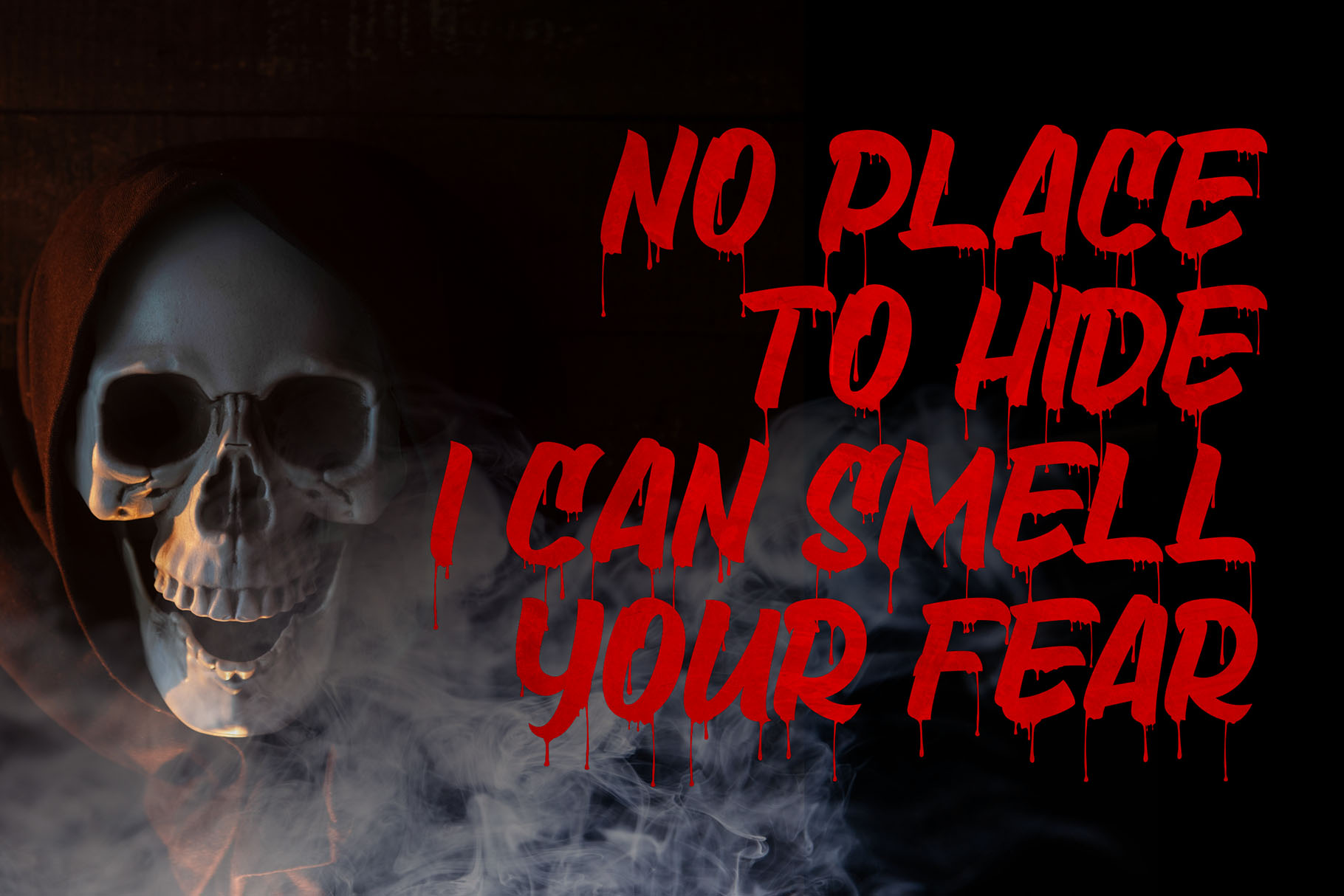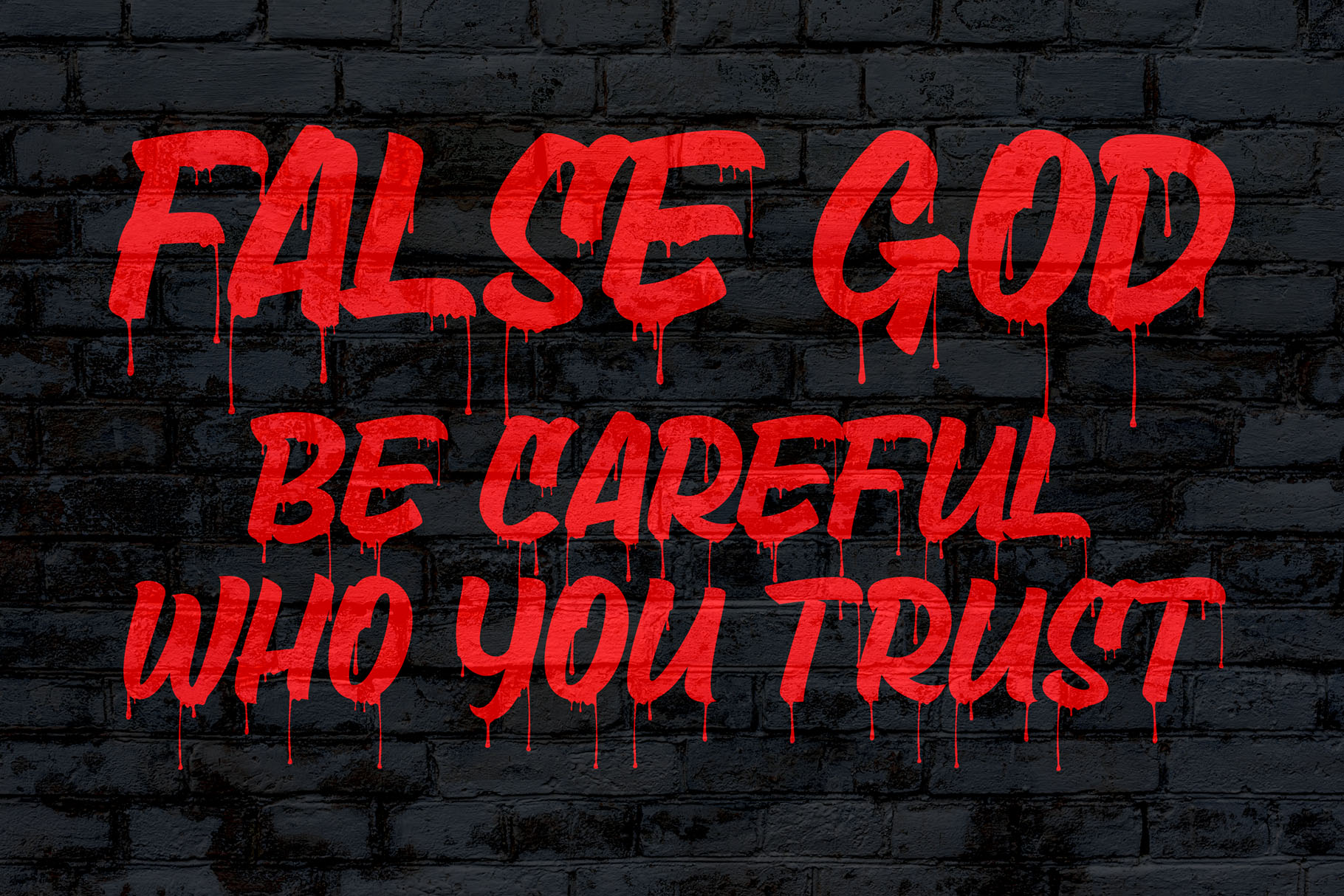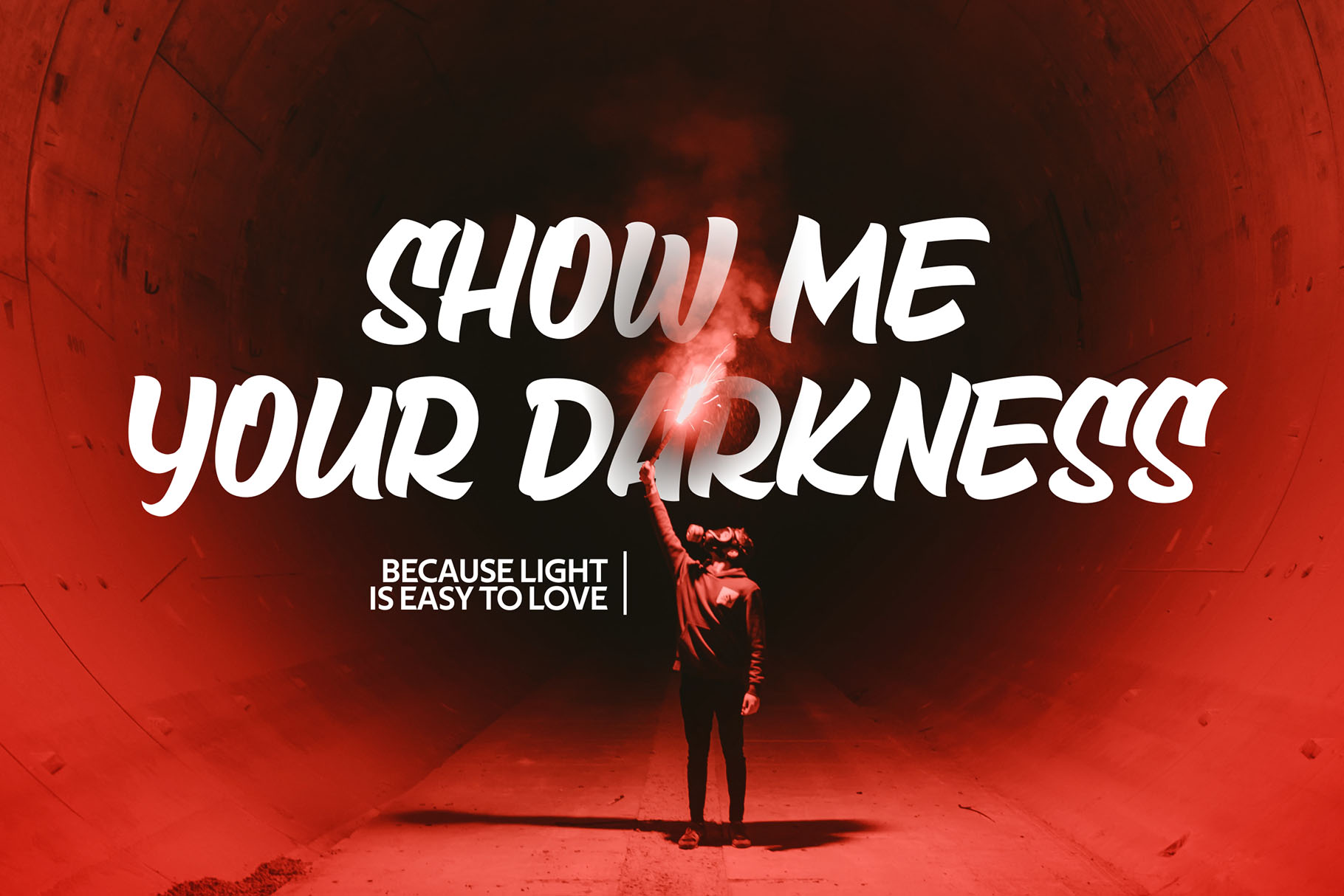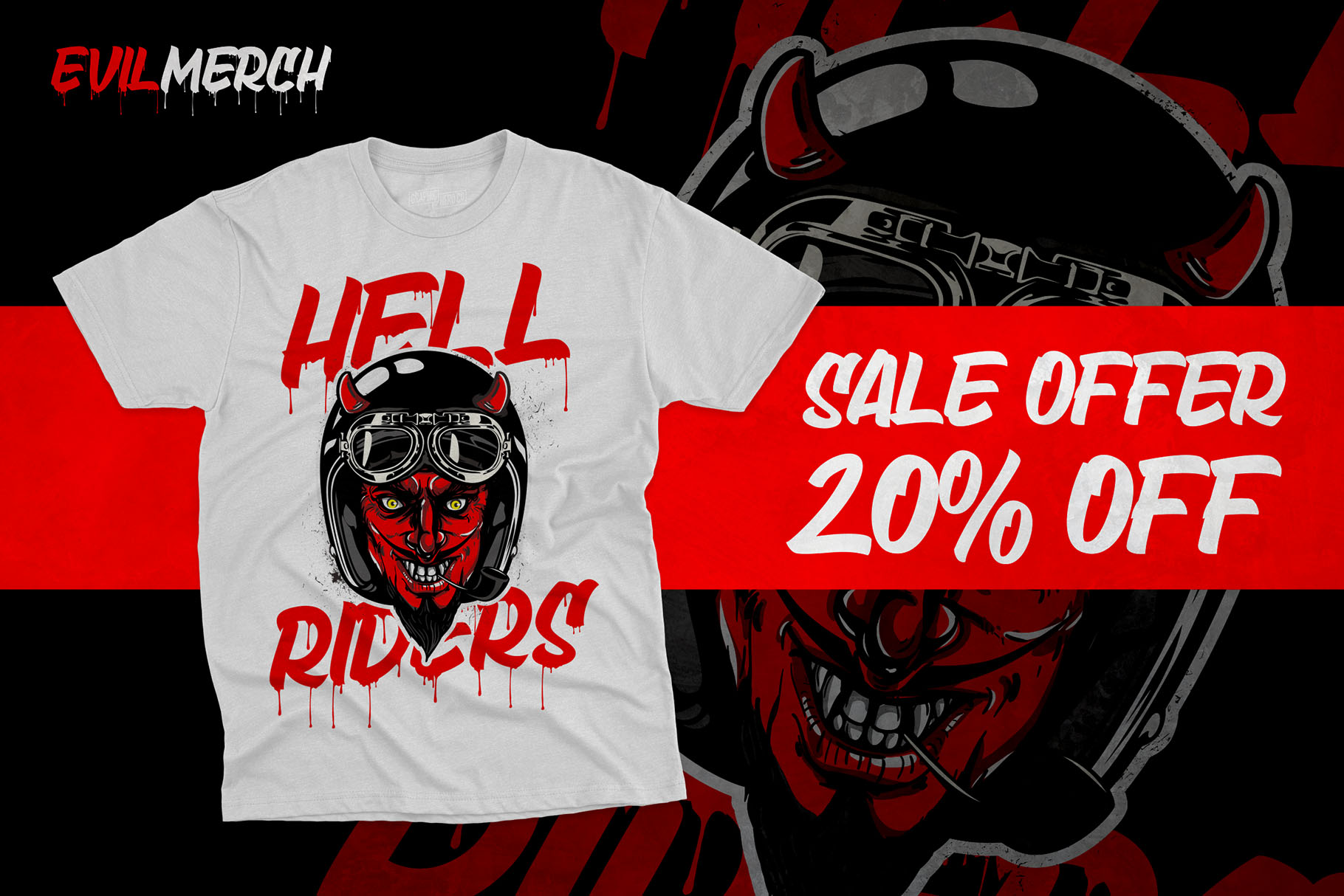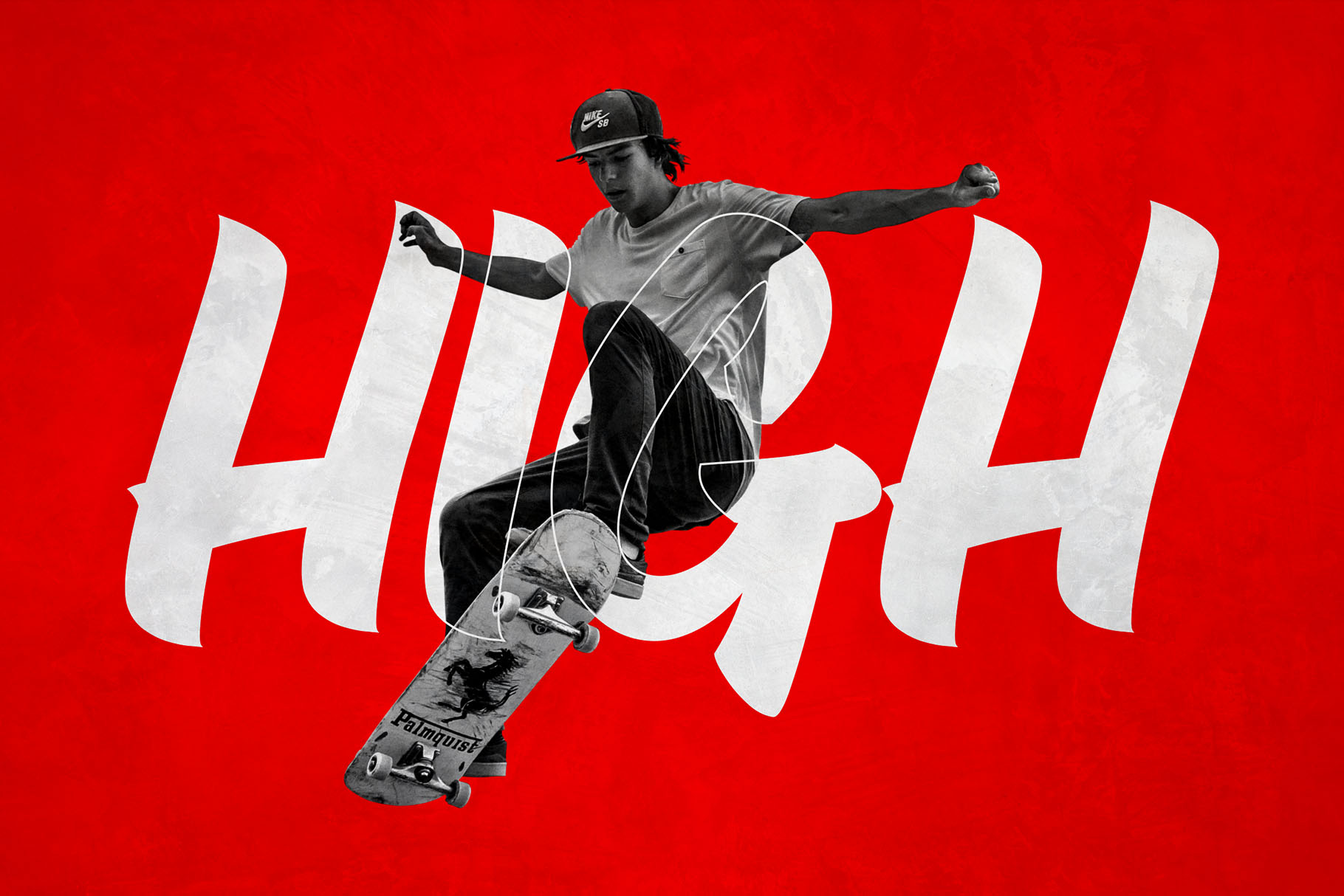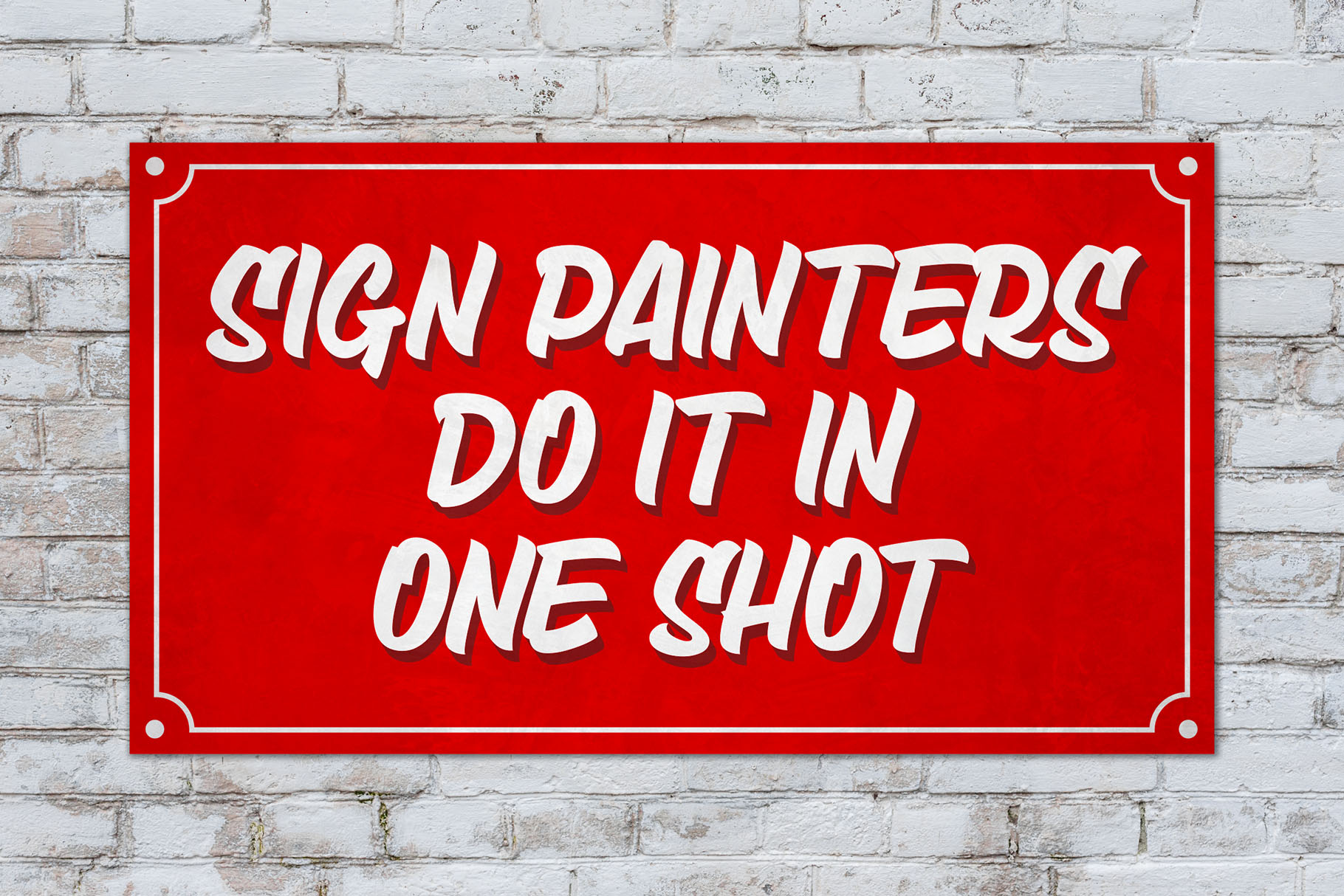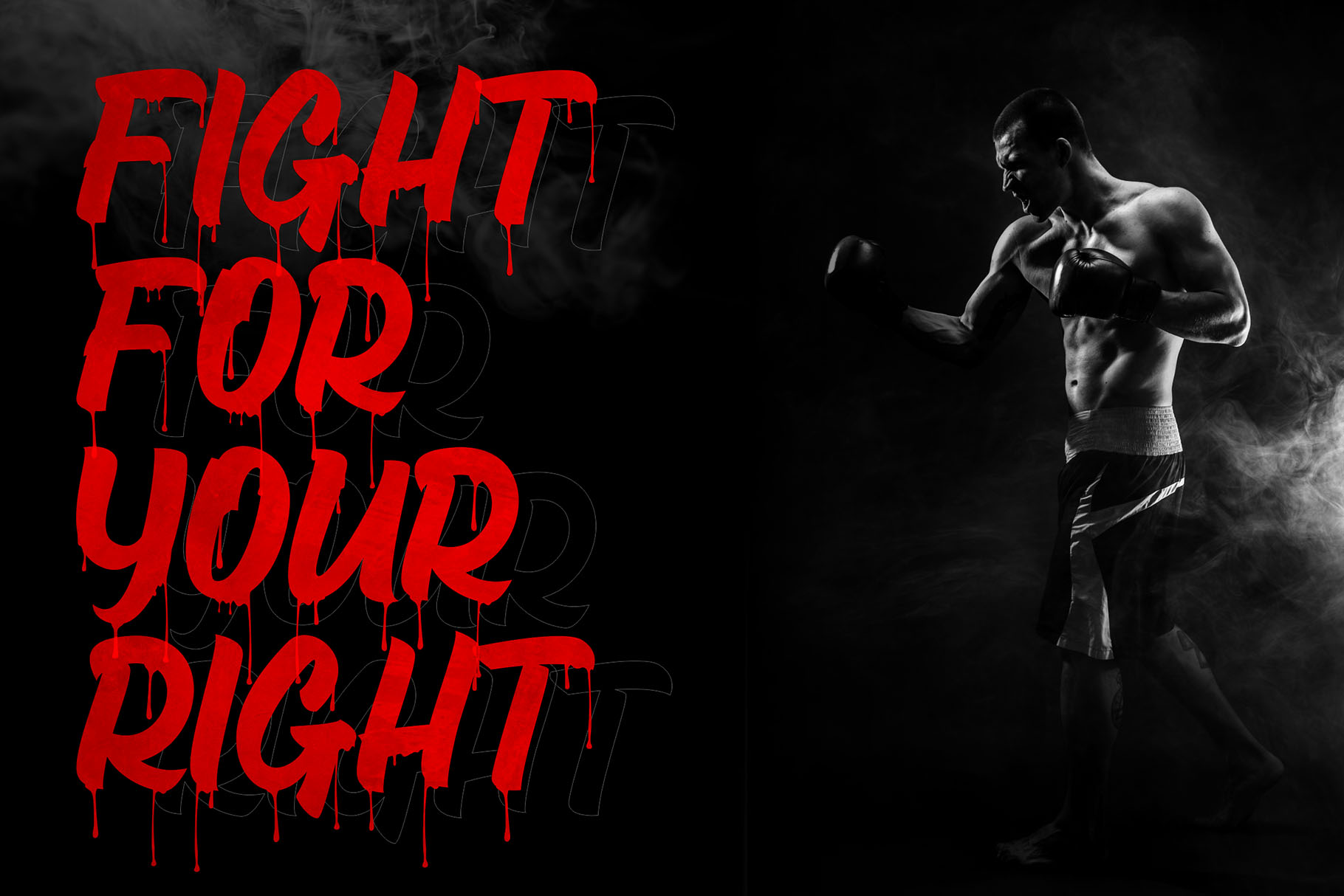
Death Markers Retro Brush Font for Vintage Horror Design
Death Markers is a retro brush font made for creative projects that need a bold vintage voice with a darker edge. Inspired by vintage aesthetic sign painting and built with a hand-lettering feel, this font brings dramatic movement, expressive brush energy, and a horror touch that instantly gives your design a stronger visual presence.
The mood is direct, raw, and memorable. Death Markers feels right at home in poster titles, merchandise artwork, Halloween-inspired branding, dark quote designs, product packaging, and social media graphics that need more personality than a clean standard typeface can offer.
With two included styles, Clean and Drip effect, Death Markers gives designers flexibility for different creative directions. Use the Clean style when you want a strong retro brush look with better readability. Use the Drip style when your project needs a more dramatic, eerie, or horror-driven atmosphere.
Death Markers carries the visual character of hand-painted signage, vintage brush lettering, and expressive retro display typography. Its strokes feel energetic and imperfect in the right way, giving the font a handmade personality that works well for branding and display use.
The Clean version gives your text a confident brush-lettered structure. It can be used for logos, headers, packaging names, quote layouts, apparel graphics, and bold promotional visuals. It keeps the retro sign-painting attitude while staying practical for projects that need strong text impact.
The Drip effect version adds a darker theatrical quality. It is ideal for horror posters, Halloween graphics, haunted event designs, spooky merchandise, dramatic social media content, and designs that need a visual sense of danger or mystery. The dripping detail helps create atmosphere without requiring extra illustration work.
Together, the two styles make Death Markers useful for designers who want one font family with both vintage charm and horror tension.
Best Use Cases for This Retro Brush Font
Death Markers is ideal for logos, handwritten quotes, product packaging, headers, posters, merchandise, social media graphics, and greeting cards. Its expressive shape makes it especially useful for projects where the typography needs to become the main visual element.
For branding, Death Markers works well when the brand direction leans bold, retro, spooky, handmade, alternative, or expressive. It can help create a memorable logo for tattoo-inspired brands, horror-themed products, vintage apparel labels, music posters, bar or café visuals, seasonal Halloween collections, and bold creative campaigns.
For packaging design, the font can bring a crafted, hand-painted feel to labels and product names. The Clean style can create a vintage shelf presence, while the Drip style can be used for limited editions, seasonal releases, or products that need a darker story.
For content creators and digital product sellers, Death Markers can be used in printable quotes, poster templates, greeting cards, social media posts, and merchandise artwork. The brush movement gives layouts a human feel, while the horror touch makes it stand out in niche design categories.
Key Features
- Retro brush font inspired by vintage aesthetic sign painting
- Hand-lettering style with dramatic movement
- Includes 2 styles: Clean and Drip effect
- Suitable for logos, handwritten quotes, packaging, headers, posters, merchandise, social media, and greeting cards
- Includes ligature feature
Designers love Death Markers because it gives a project instant character. It does not feel flat, plain, or overly polished. Instead, it brings the energy of brush lettering, vintage display type, and expressive sign-painting aesthetics into a practical font package.
The two-style structure is especially useful for real design workflows. A designer can create a cleaner logo direction with the regular Death Markers style, then use Death Markers Drip for campaign visuals, posters, social graphics, or special edition merchandise. That makes the font easier to adapt across multiple deliverables without losing the core identity.
For brand owners, Death Markers helps create a memorable visual tone. It can make packaging feel more handcrafted, give posters a stronger title treatment, and make merchandise artwork feel more collectible. For content creators, the font works well for quote graphics, reels covers, printable wall art, greeting cards, and seasonal horror visuals.
Death Markers is made for designers who want typography with story, movement, and atmosphere. Whether you are creating a horror poster, retro logo, dark quote design, seasonal packaging, or bold merchandise artwork, this retro brush font gives your words a strong visual identity from the first glance.